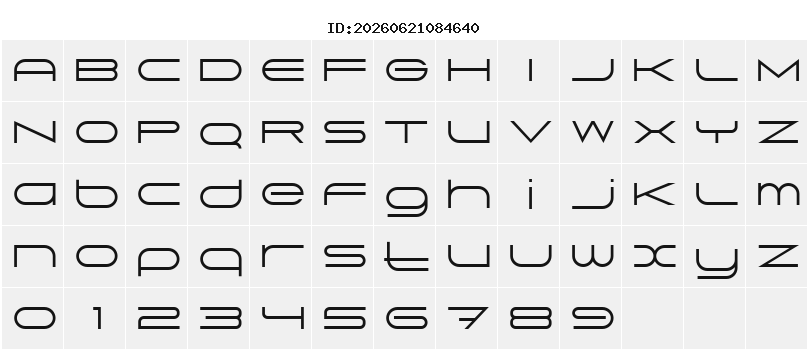
PROJECT SPACE Preview
About PROJECT SPACE.ttf
PROJECT SPACE.ttf is a modern, elegant sans-serif font designed for ultimate readability and visual harmony. Perfect for branding, headlines, web design, and print materials.